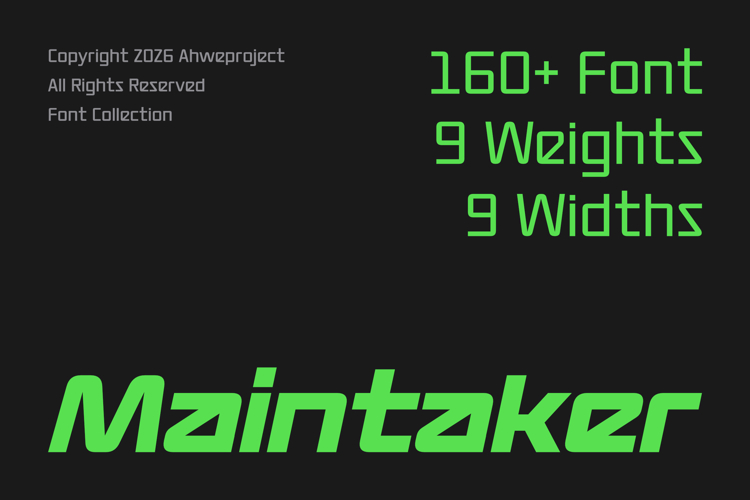
Maintaker
Take your design to the next level with Maintaker, a powerful futuristic font family built for creators who want bold, modern, and high-impact visuals.
With 160+ styles, including 9 weights and 9 widths, Maintaker gives you full control to craft anything from sleek minimal layouts to aggressive, tech-inspired branding.
Designed with a clean geometric structure and strong personality, this font is perfect for:
- Tech & gaming designs
- Automotive & racing branding
- Sports and streetwear visuals
- Modern logos & headlines
- UI/UX and digital products
Why Maintaker stands out:
- Massive style variations for maximum flexibility
- Sharp, futuristic look that grabs attention instantly
- Consistent design system across all weights & widths
- Perfect for both bold headlines and structured layouts
Whether you're building a brand, designing posters, or creating standout social media content, Maintaker delivers a professional, high-energy look that won’t get ignored.